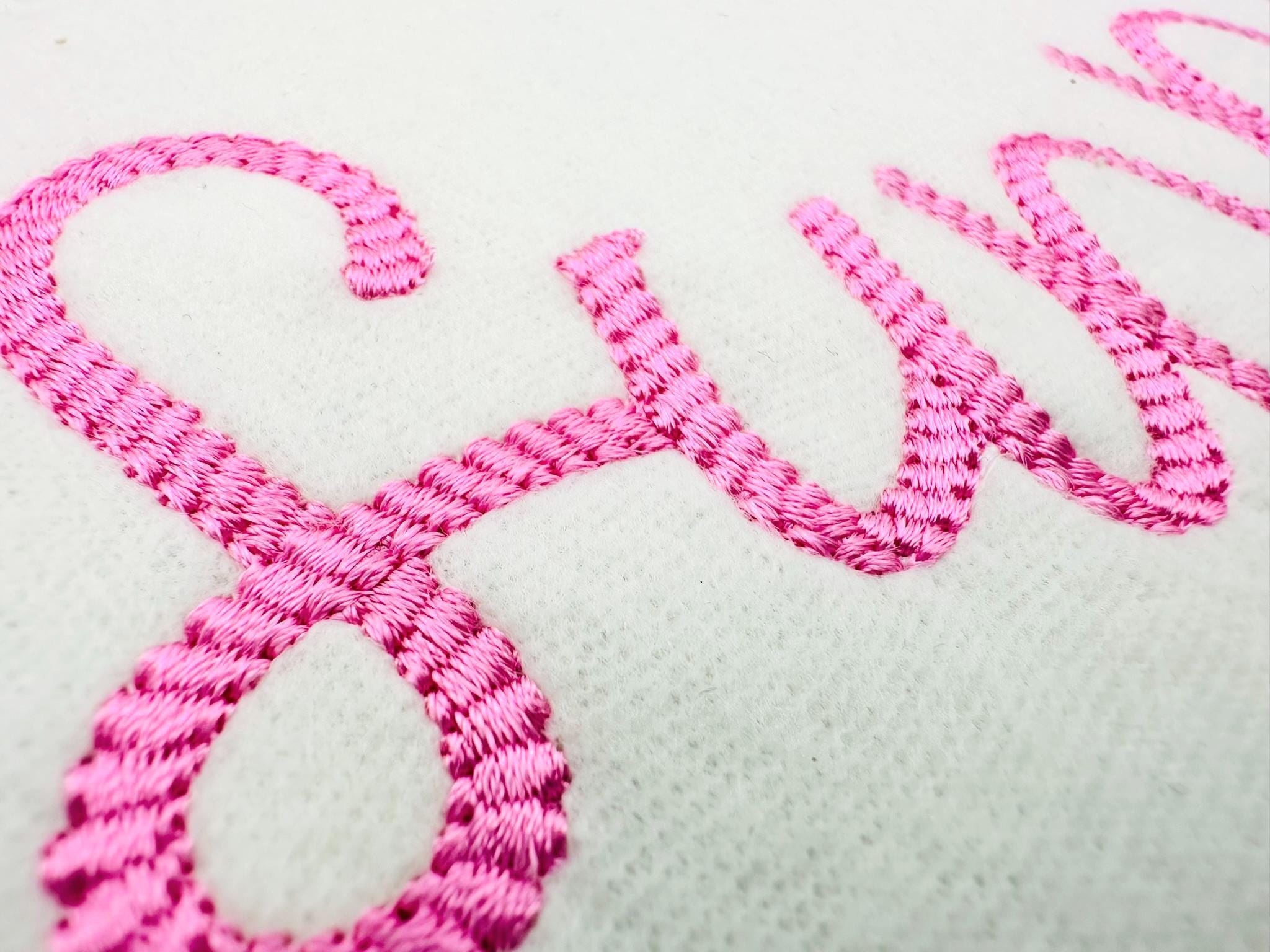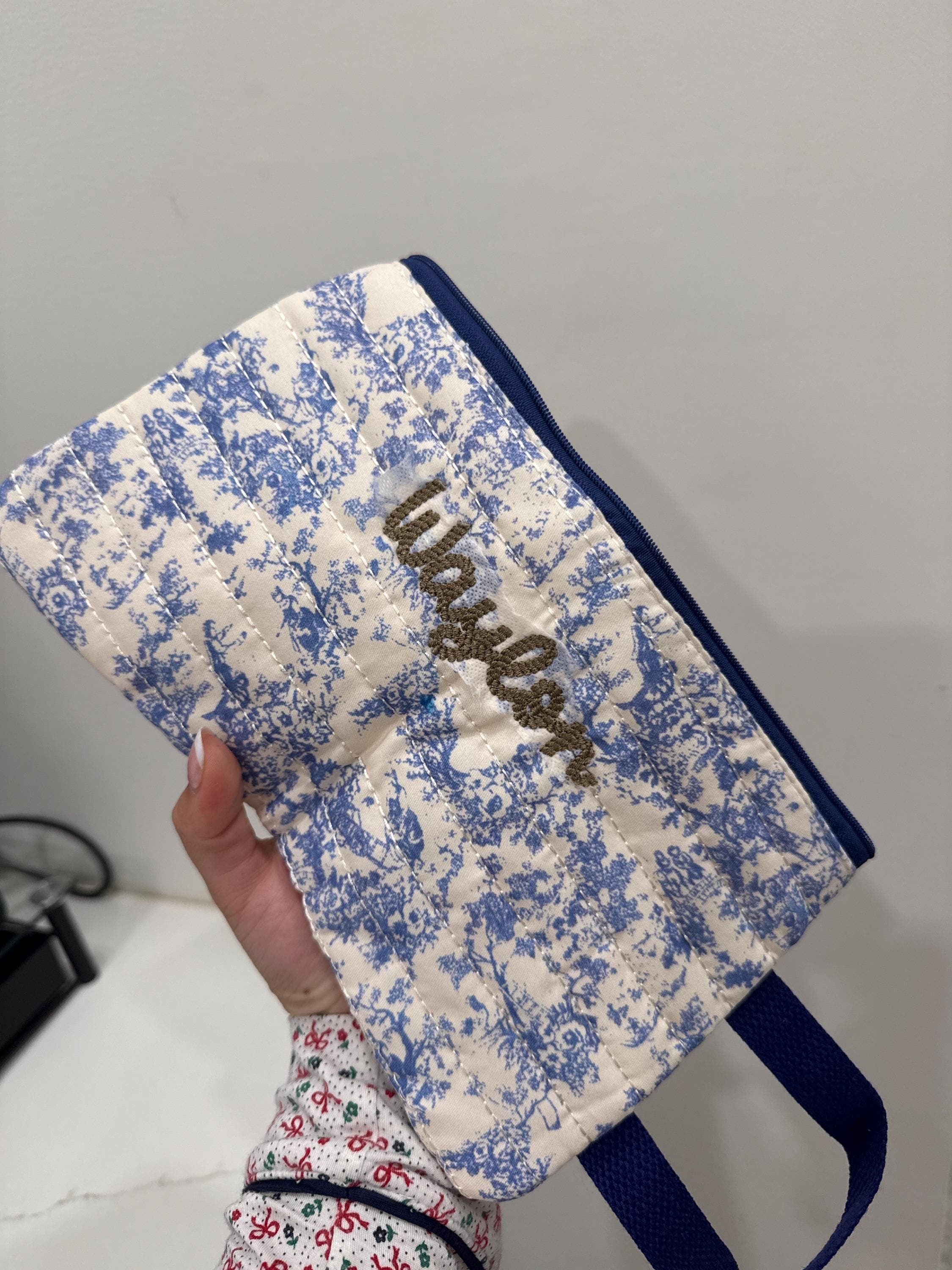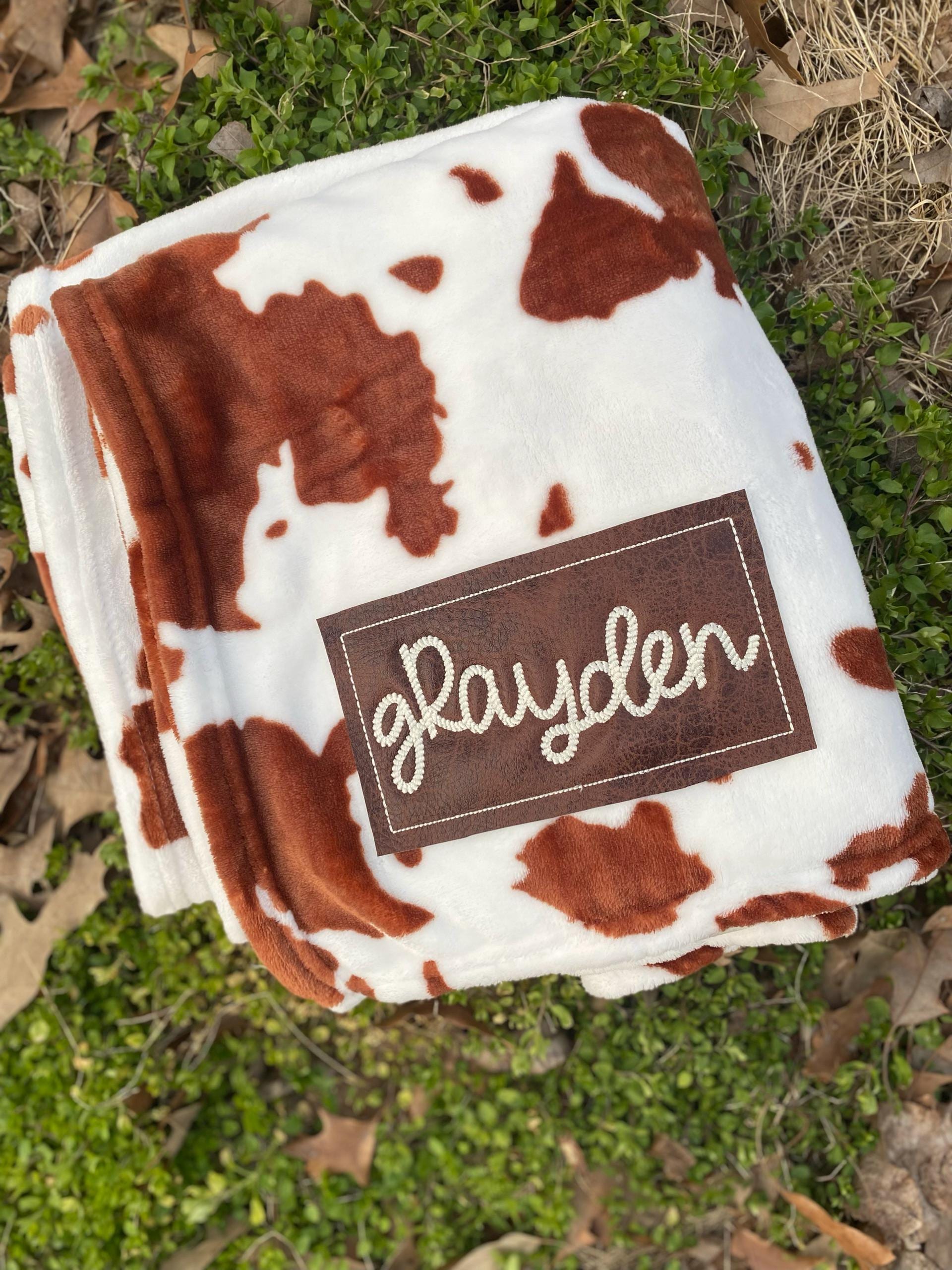
Rope stitch FONT machine embroidery designs assorted mini sizes 1 to 3 inch alphabet letters girl cowboy cowgirl monogram lasso rope effect
Entire alphabet uppercase and lowercase letters, and numbers.
Stitched out great on fabric!
It stitched up very sweetly. Using this don’t for a first birthday celebration banner. Blessings!